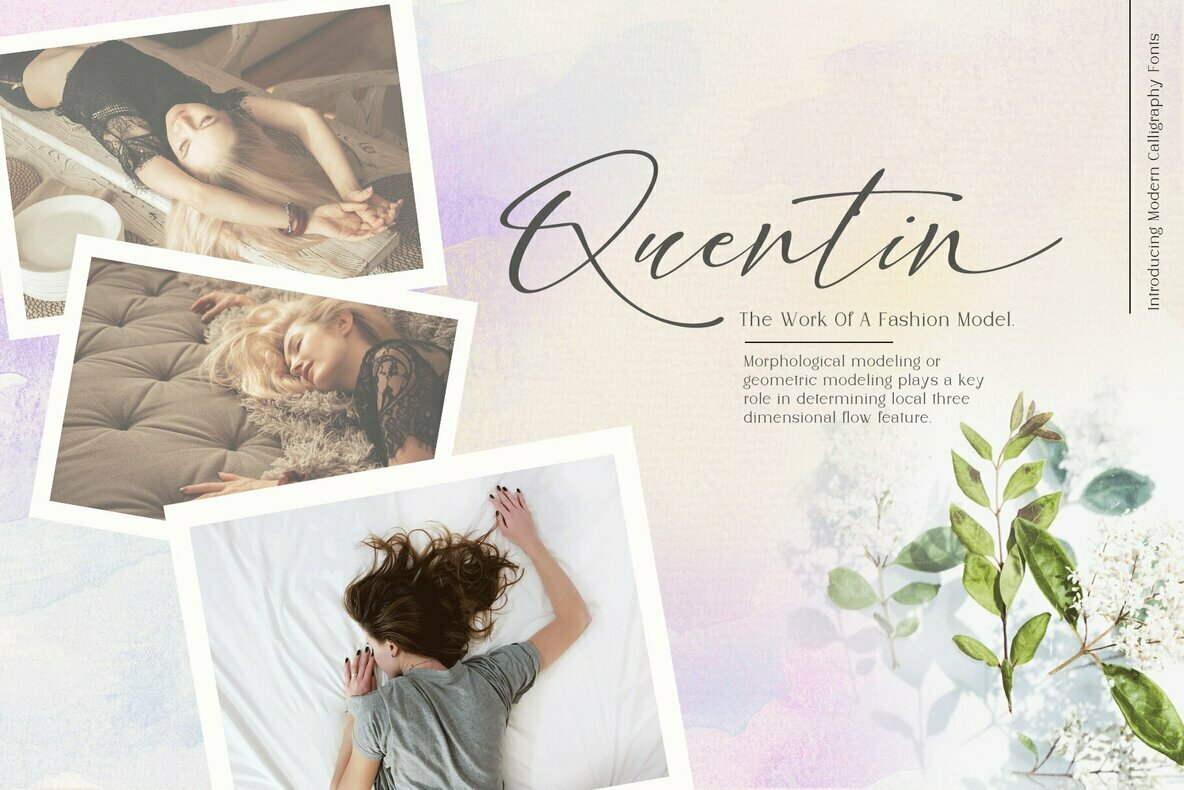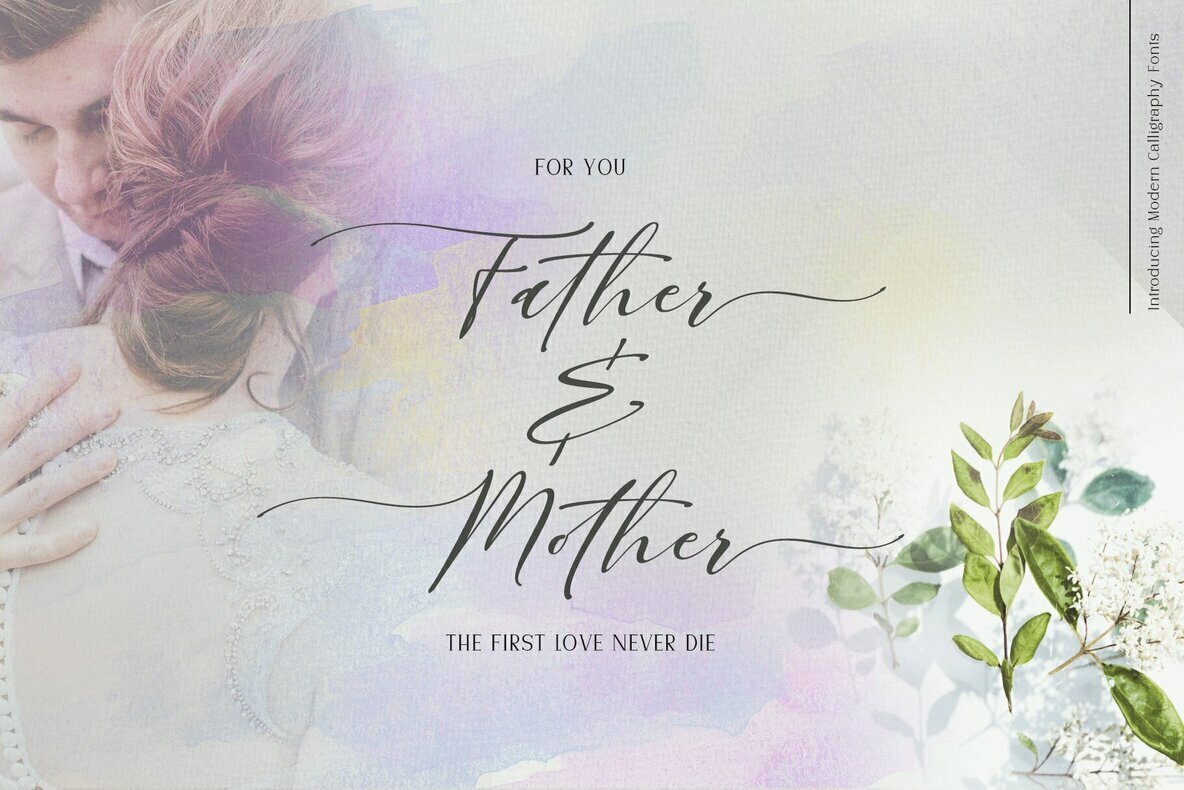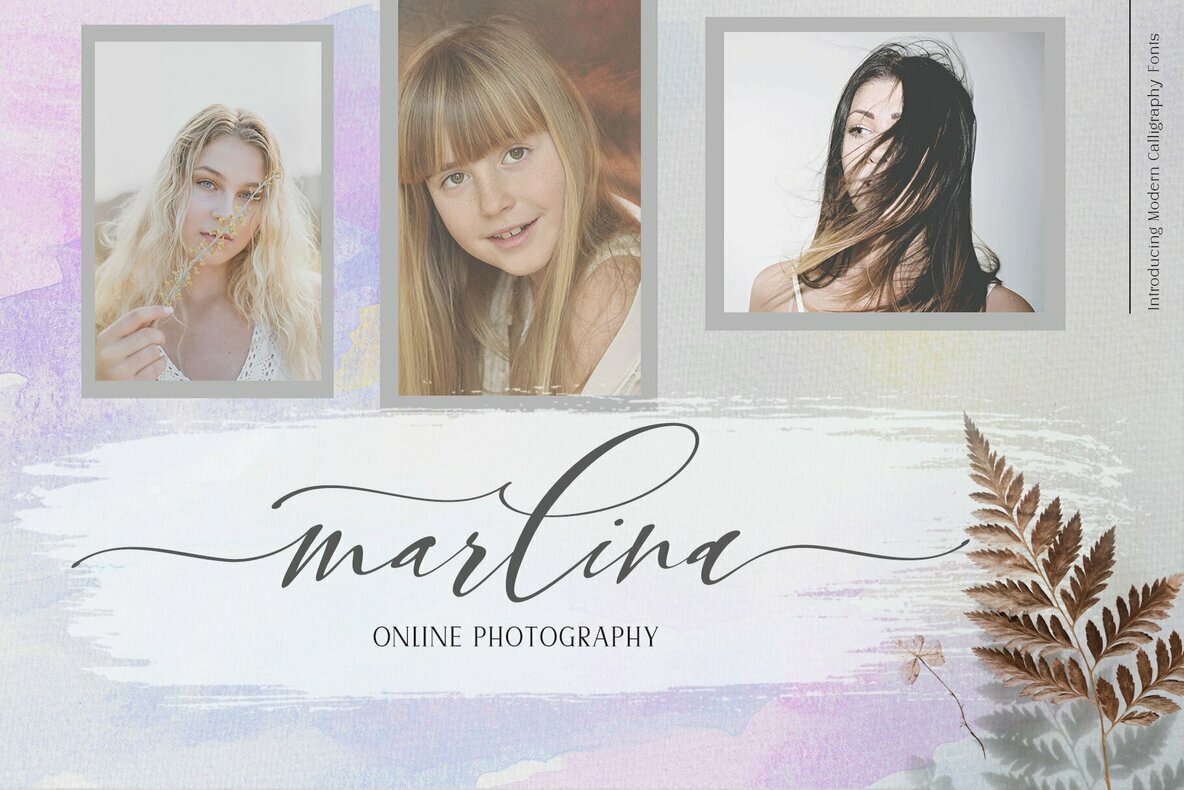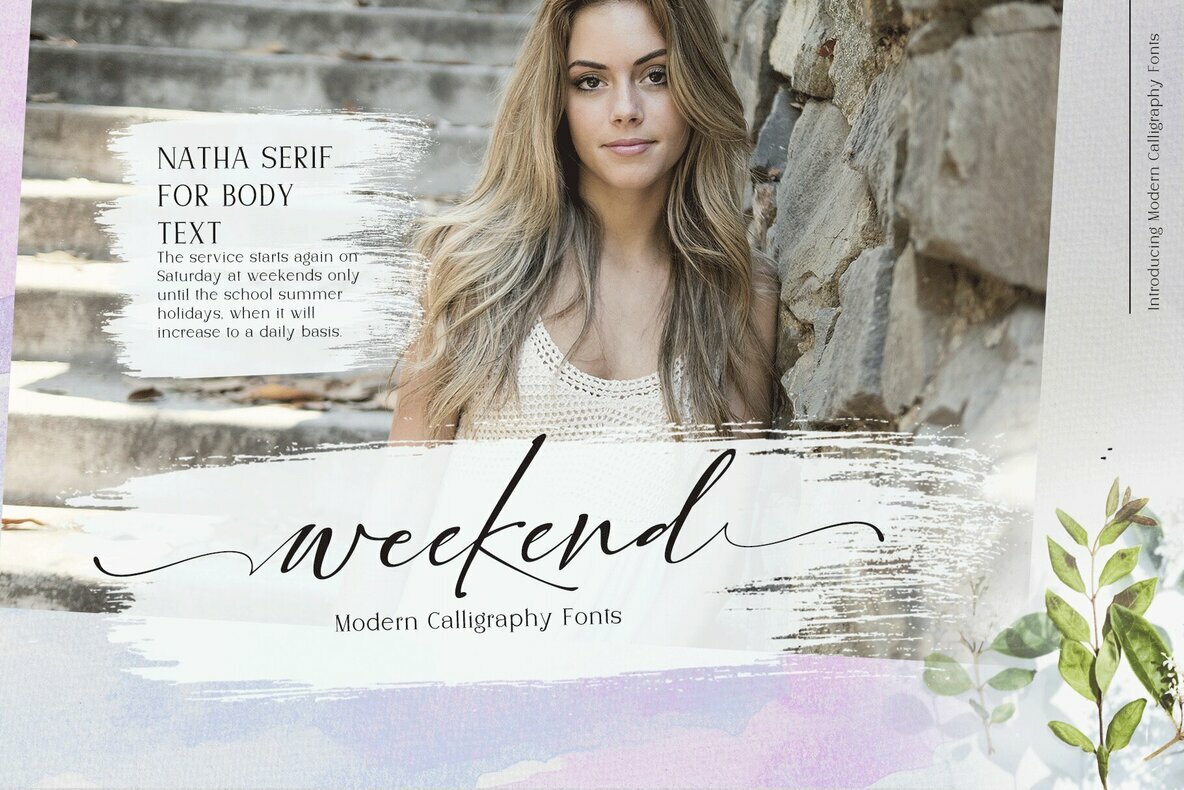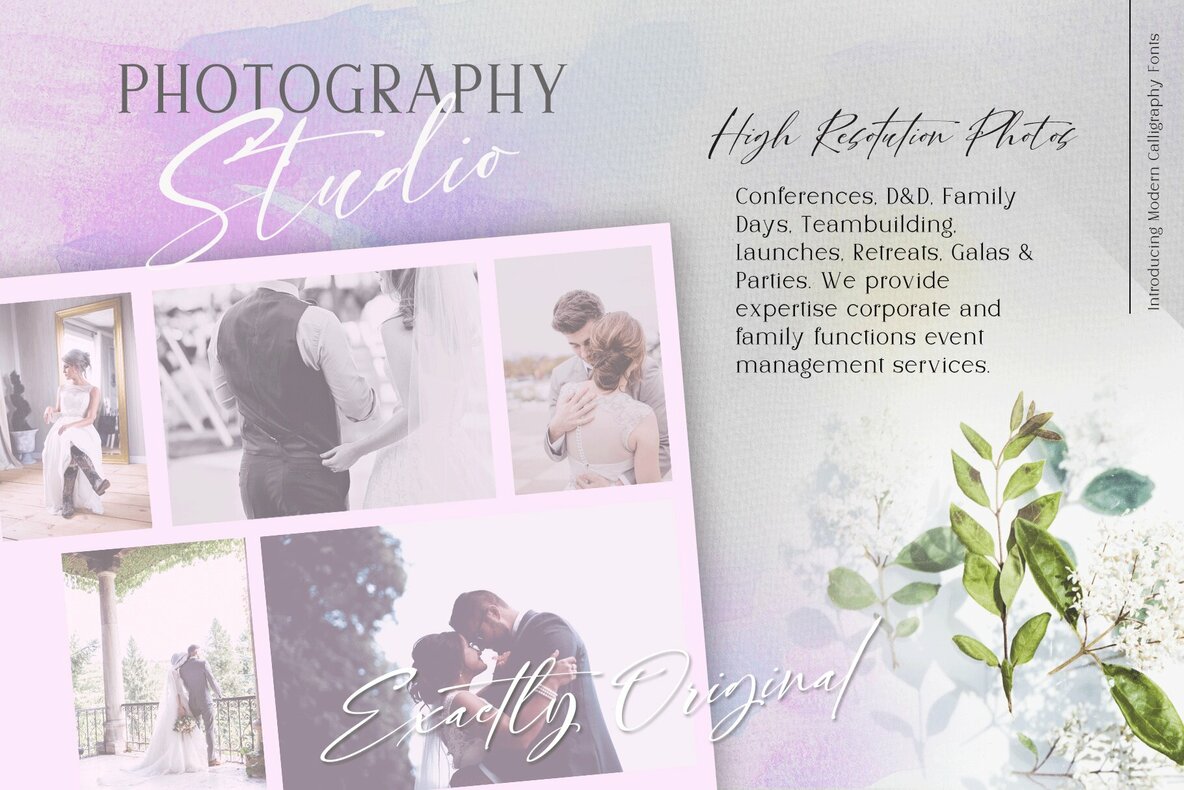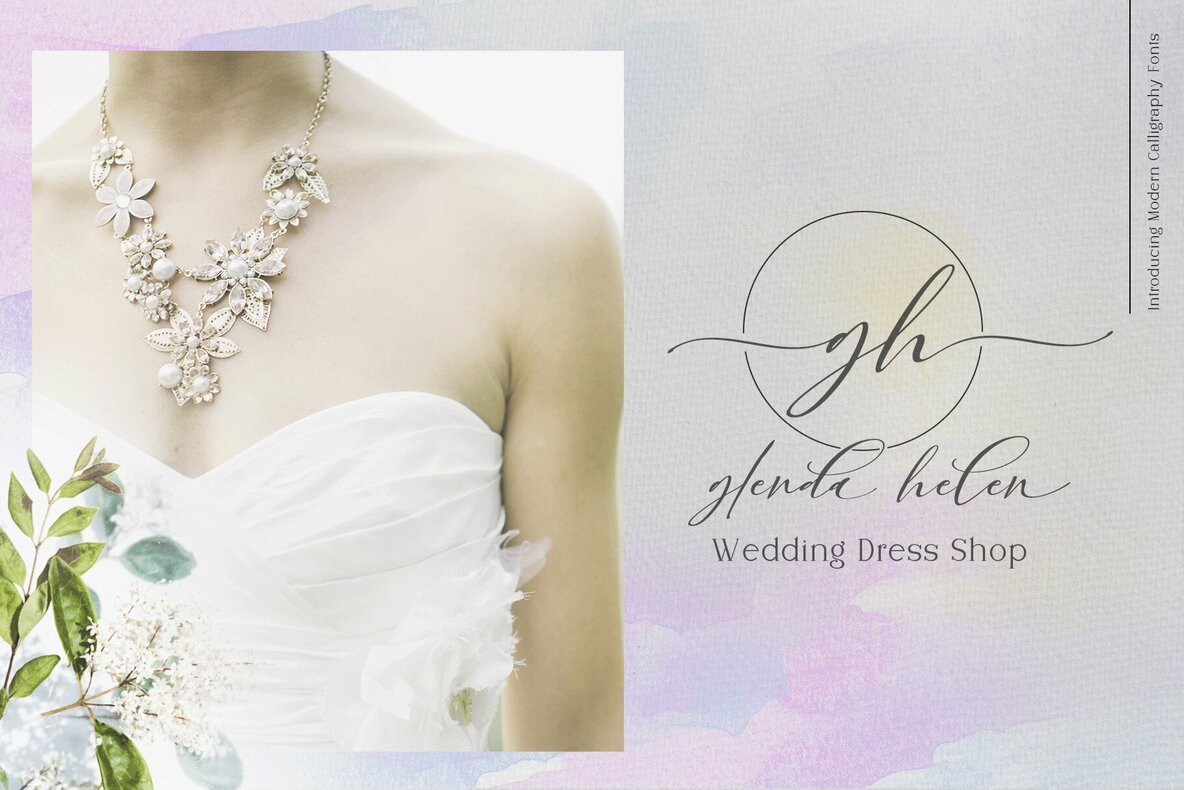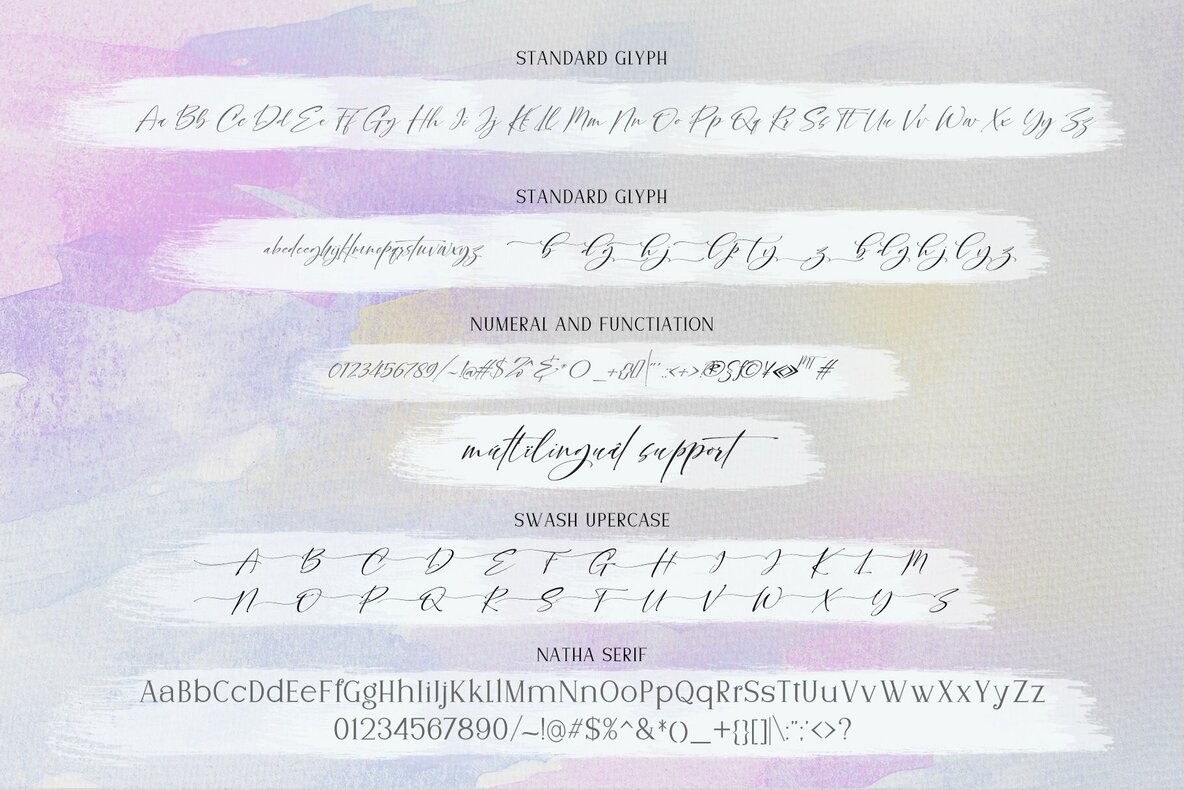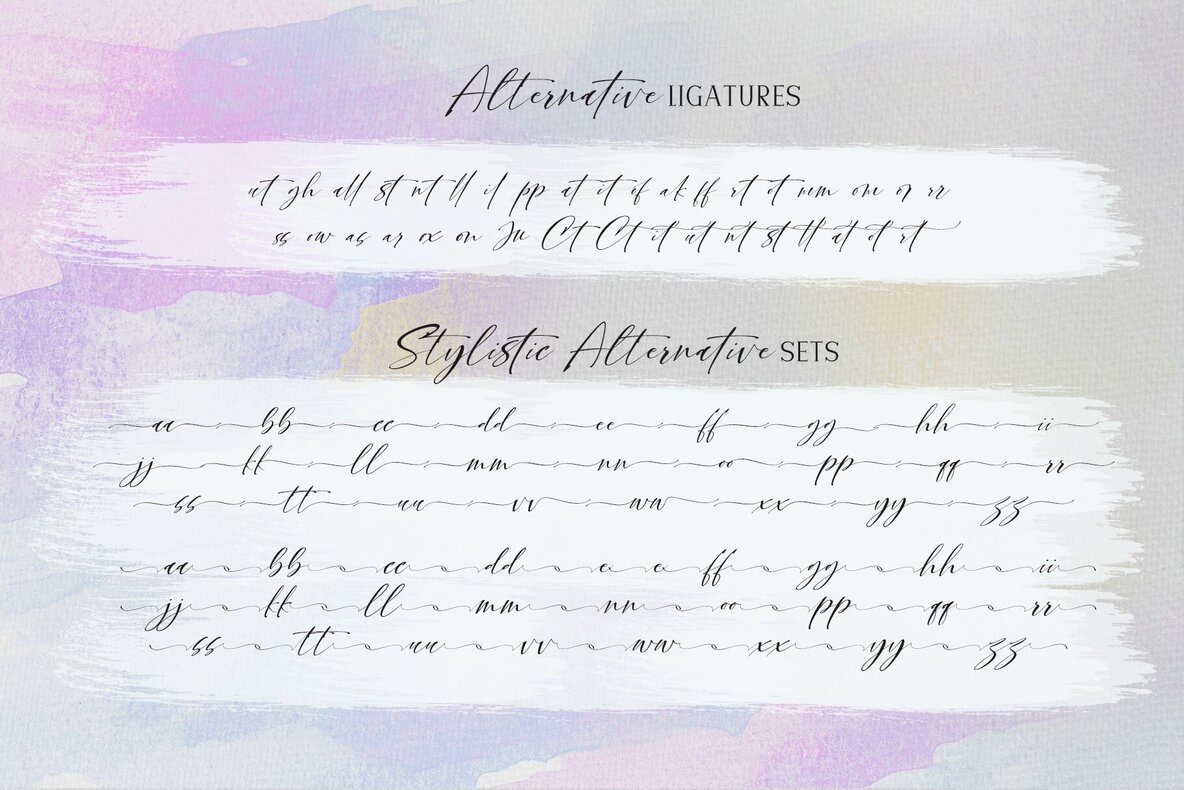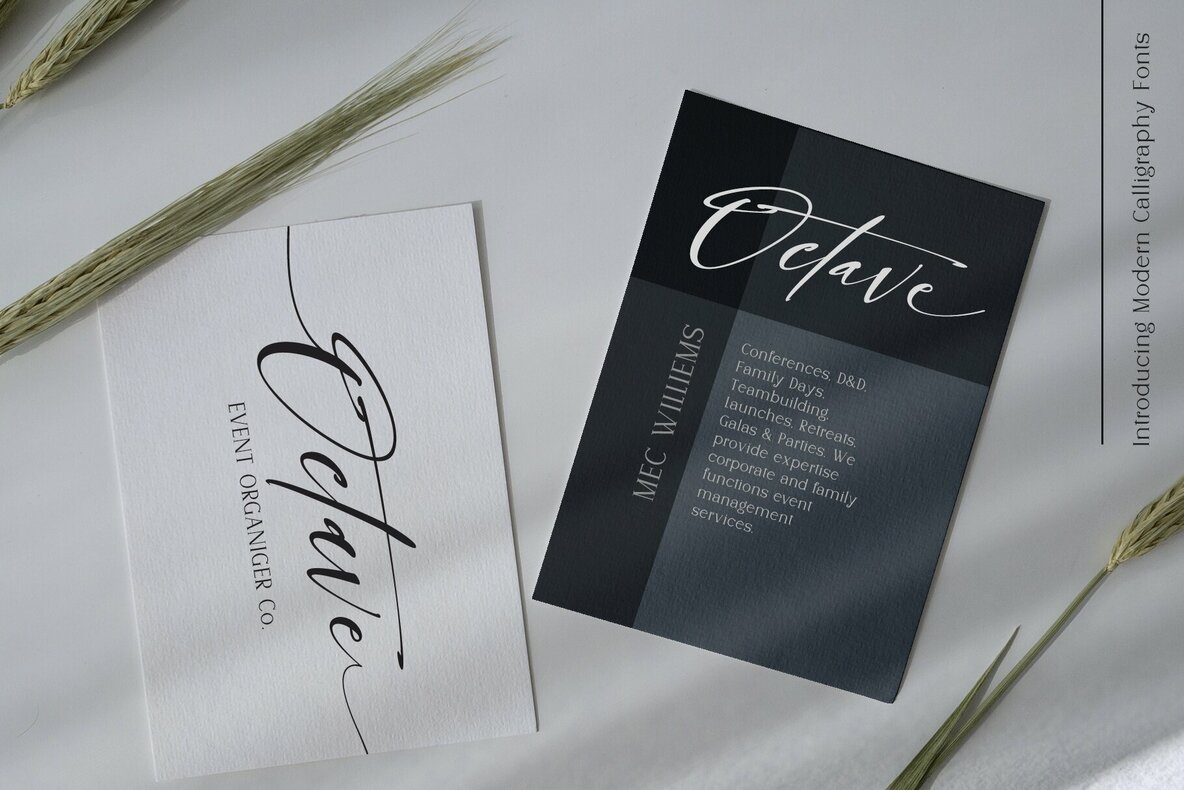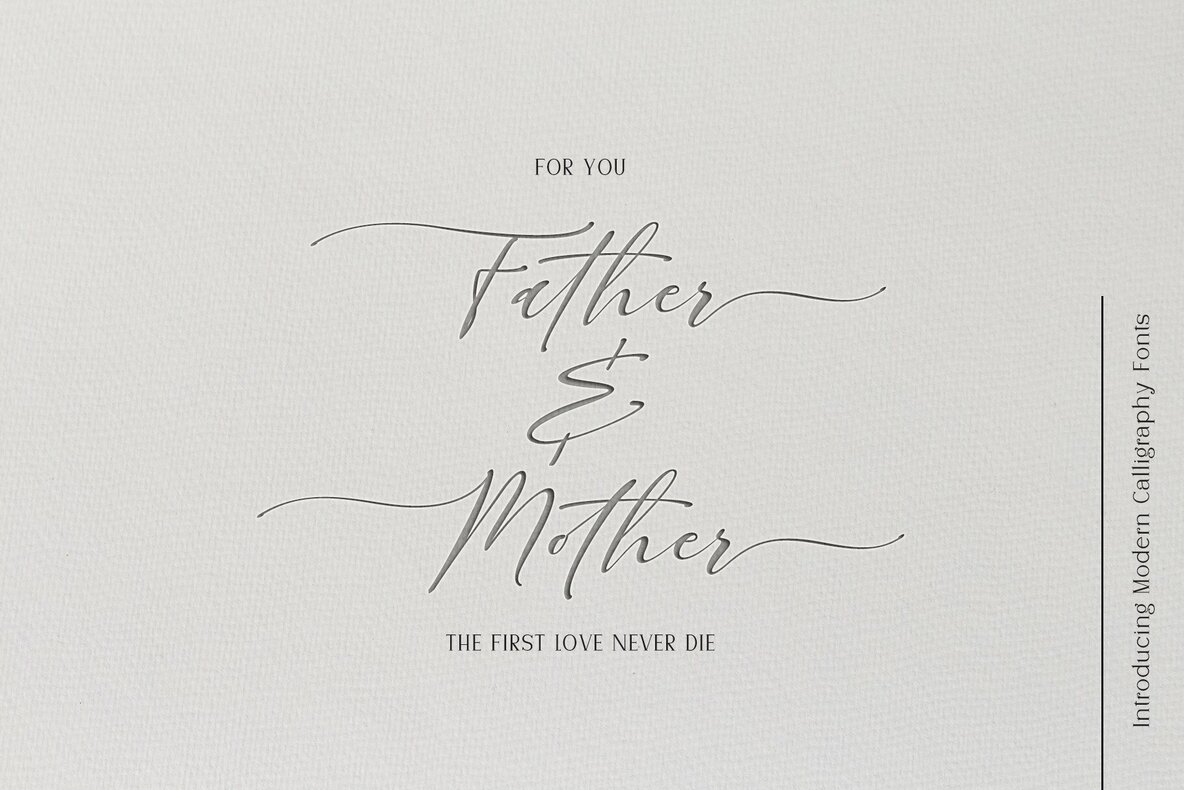
Yovelyn and Natha Font
Yovelyn and Natha are two complementary fonts designed to meet diverse creative needs. Yovelyn, a script font, emulates natural handwriting with the fluidity of liquid ink, offering a calligraphic charm that enhances personal projects. In contrast, Natha is a serif font, available in both standard and italic versions, characterized by its delicate and gentle nature. Together, these fonts are suitable for crafting elegant invitations, sophisticated signatures, engaging blogs, and professional business cards.Yovelyn and Natha: A Harmonious Font Duo